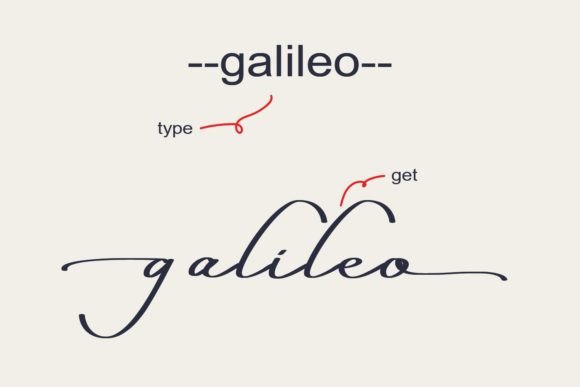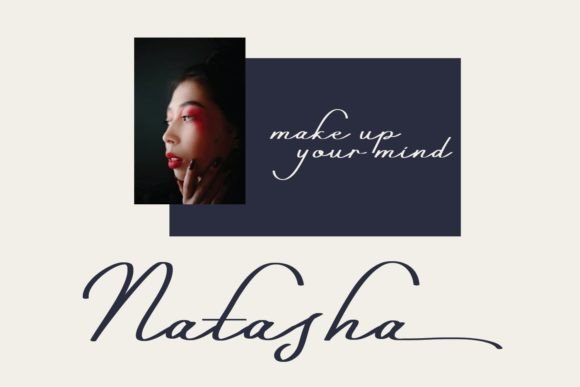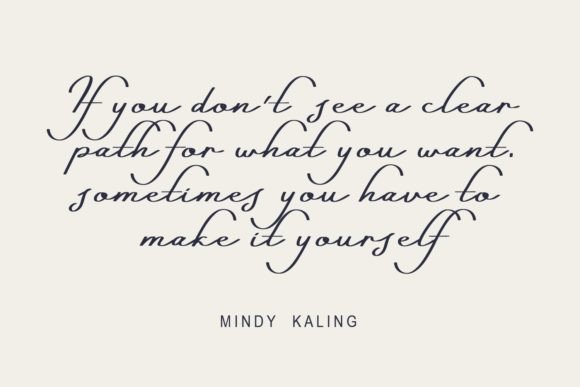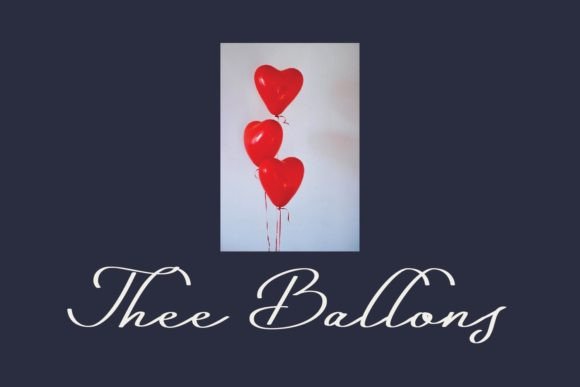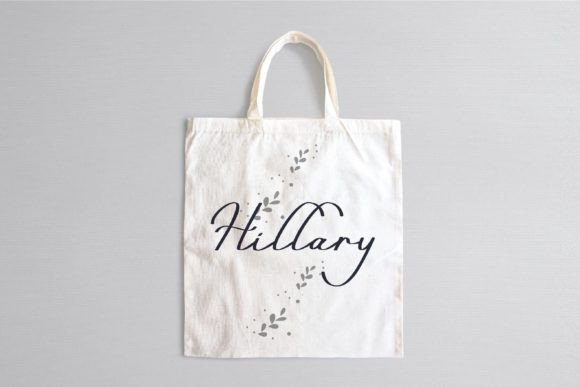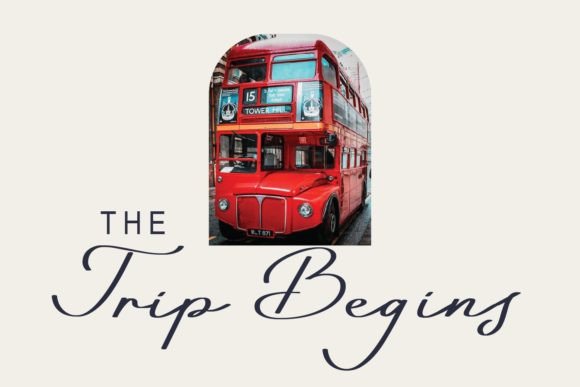
Discover the Elegance of Galileo Font: A Timeless Script for Designers and Crafters
In the world of typography, few fonts capture the essence of elegance and sophistication as beautifully as the Galileo font. This stunning script font has been making waves among designers and crafters alike, and for good reason. With its flowing lines, beautiful characters, and versatility, Galileo font is an excellent addition to any design project. In this article, we’ll delve into the features, benefits, and uses of Galileo font, exploring what makes it a must-have for anyone looking to elevate their designs.
The Characteristics of Galileo Font
Galileo script font is an elegant, and flowing handwritten font that boasts beautiful and well-balanced characters. Its unique design makes it an excellent match for a wide pool of designs, from wedding invitations and branding materials to packaging and digital media. The font’s classic and sophisticated look is reminiscent of traditional calligraphy, yet its modern twist makes it perfect for contemporary designs.
One of the standout features of Galileo font is its PUA (Private Use Area) encoding. This means that users can access all of the glyphs and swashes with ease, giving them complete creative control over their designs. With PUA encoding, designers can effortlessly navigate the font’s extensive character set, including alternates, ligatures, and ornaments. This feature makes it simple to customize and fine-tune designs, ensuring that every project looks polished and professional.
Versatility: A Font for Various Design Applications
Galileo font’s versatility is one of its most significant advantages. Its elegant and flowing design makes it suitable for a wide range of design applications, including:
- Wedding and Event Design: Create stunning wedding invitations, save-the-date cards, and event branding materials with Galileo font’s sophisticated and romantic look.
- Branding and Packaging: Use Galileo font to develop a cohesive brand identity, including logos, labels, and packaging materials that exude elegance and refinement.
- Digital Media: Enhance your digital content with Galileo font’s beautiful script, perfect for blog headers, social media graphics, and website designs.
- Crafting and DIY Projects: Add a touch of sophistication to your crafting and DIY projects, such as handmade cards, gift tags, and scrapbooking pages.
Why Designers and Crafters Love Galileo Font
Galileo font has quickly become a favorite among designers and crafters due to its unique combination of style, versatility, and ease of use. Here are just a few reasons why:
- Elegant and Sophisticated: Galileo font’s classic design adds a touch of sophistication to any project, making it perfect for designs that require a level of refinement.
- Easy to Use: With PUA encoding, designers can easily access and use the font’s extensive character set, making it simple to create stunning designs.
- Highly Versatile: Galileo font’s adaptability makes it suitable for a wide range of design applications, from traditional printing to digital media.
In conclusion, Galileo font is an exceptional script font that offers designers and crafters a unique combination of elegance, versatility, and ease of use. Its beautiful and well-balanced characters, PUA encoding, and adaptability make it an excellent addition to any design project. Whether you’re a seasoned designer or a crafting enthusiast, Galileo font is sure to become a go-to choice for creating stunning and sophisticated designs. So why wait? Discover the elegance of Galileo font and take your designs to the next level!